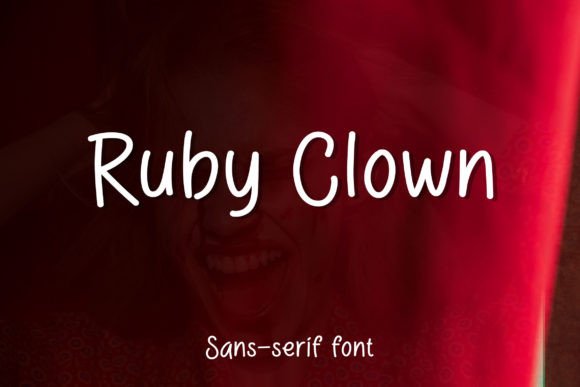
Journey into the enchanting world of Ruby Clown, a captivating handwritten font that blends modern appeal with timeless elegance. Immerse yourself in the beauty of its flowing strokes, each letter a work of art that dances across the page, evoking a sense of wonder and joy.
Ruby Clown's meticulous design shines in every application, from whimsical comic books to educational textbooks, captivating storybooks to playful kids' stuff. Its versatility knows no bounds, extending to posters that demand attention, advertisements that spark conversation, and social media content that captivates audiences.
Unleash your creativity with Ruby Clown, transforming logos into unforgettable emblems and crafting designs that resonate with your target audience. Let your imagination soar as you explore endless possibilities, bringing your projects to life with a font that speaks volumes.
Ruby Clown is a symphony of visual delight, a font that captures the essence of playfulness and imagination, enchanting readers of all ages. Its charming characters possess a magnetic quality, drawing readers into the world you create, whether it's a captivating novel, an informative textbook, or a whimsical children's story.
But Ruby Clown is more than just a collection of letters; it's an invitation to embark on an extraordinary journey, where words dance off the page and stories come alive. It's the perfect companion for authors seeking to craft manuscripts that captivate and inspire, leaving readers breathless.